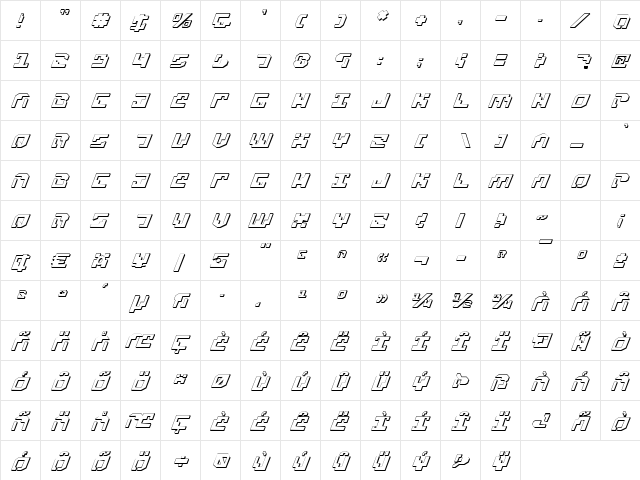
Xenophobia 3D Italic 3D Italic
Design Context for Xenophobia 3D Italic Typeface
Xenophobia 3D Italic is a composed and adaptable typeface that performs quietly and consistently across a wide range of design contexts. The slanted form adds forward momentum and visual energy.
Pro Tip: Use Xenophobia 3D Italic for emphasis, pull quotes, and subheadings where its slanted energy can add rhythm to the layout.